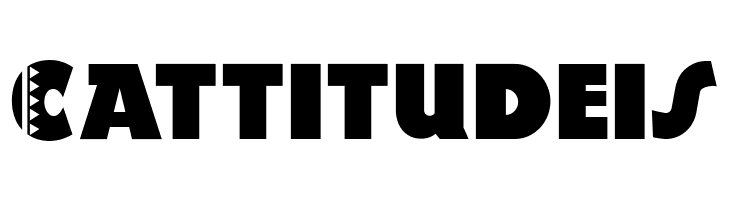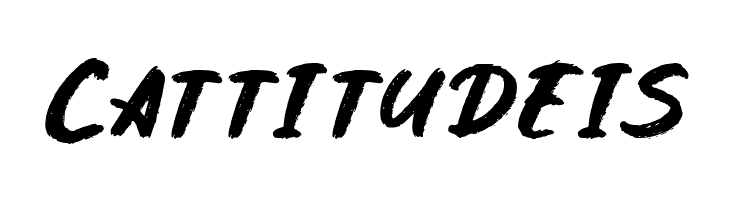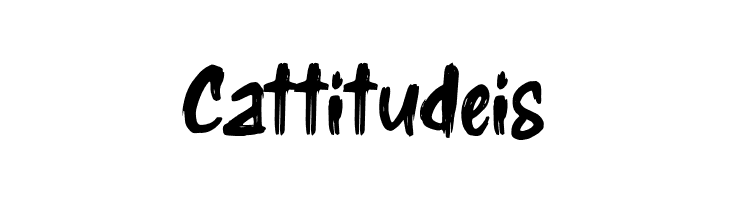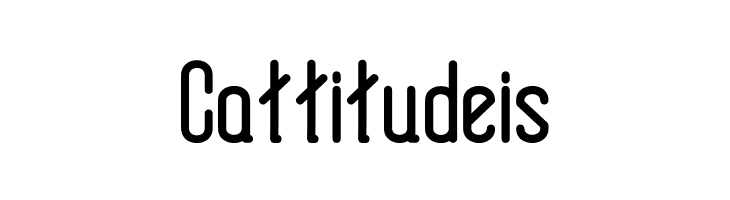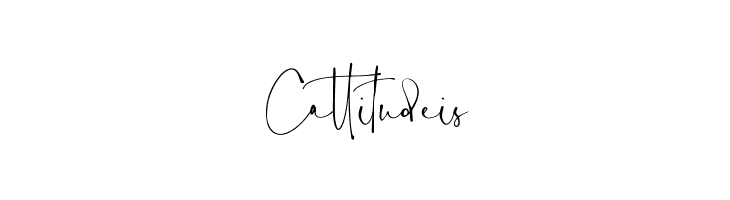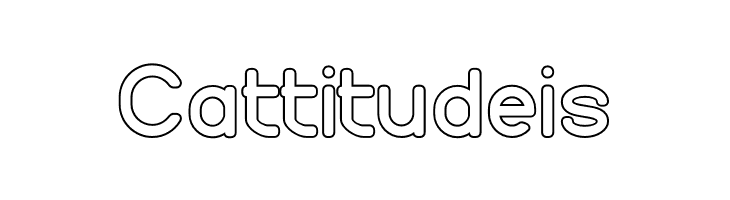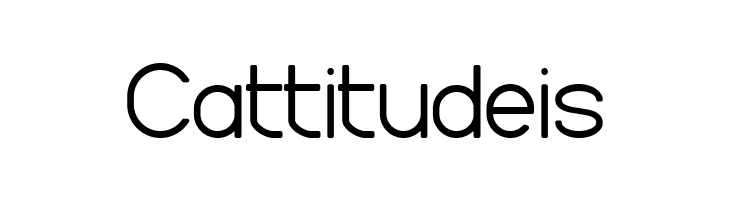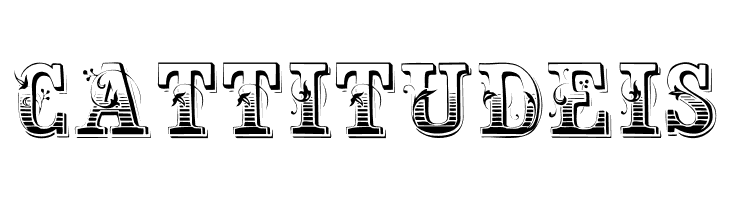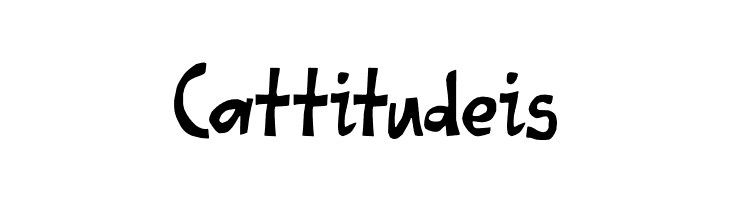
• Holstein
A playful, bold, and quirky hand-drawn font with a whimsical style.
• Holters Demo Script
Expressive, handwritten cursive script with fluid, connected strokes.
• Holters Demo Script Inline
A delicate, handwritten script with tall, sweeping forms.
• Holtwood One SC
A bold slab serif font with strong, block-like serifs and a vintage yet modern appeal.
• Holtzschue Regular
A bold, decorative font with intricate line work and three-dimensional effects.
• Holy
A modern, geometric sans-serif font with a clean and balanced design.
• Holy Christmas
Bold, decorative script with festive swashes and high contrast.
• Holy Christmas Tree
A modern, elegant script font with flowing, cursive characters.
• Holy Empire
A bold, gothic-inspired font with sharp, angular lines and a historical feel.
• Holy Family Regular
• Holy Macaroni DEMO Regular
A playful, hand-drawn font with a whimsical, cartoonish style.
• Holy Moly
A bold, textured font with a playful and energetic style.
• Holy Moly
A bold, textured font with a playful and dynamic style.
• Holy Moly light
A playful, rounded font with bold, bubbly characters.
• Holy Moly light
A playful, rounded font with bold, smooth curves and a friendly appearance.
• Holy Outline
A modern outline font with consistent stroke width and geometric shapes.
• Holy Ravioli NF
A bold, decorative font with tribal patterns and geometric shapes.
• Holy Saghne